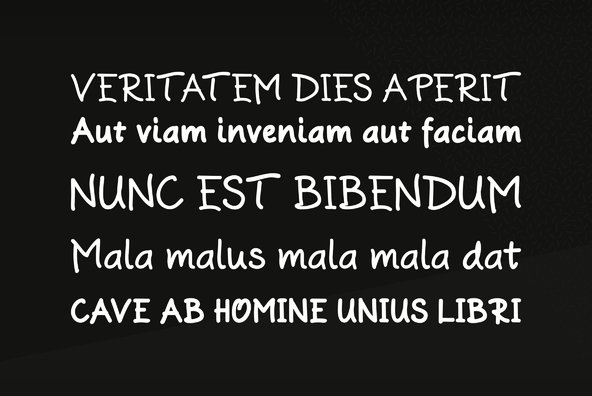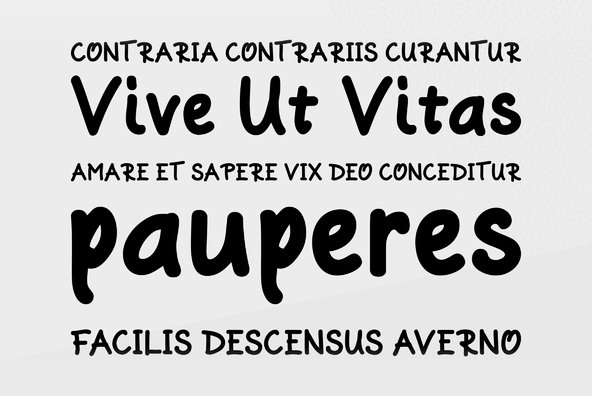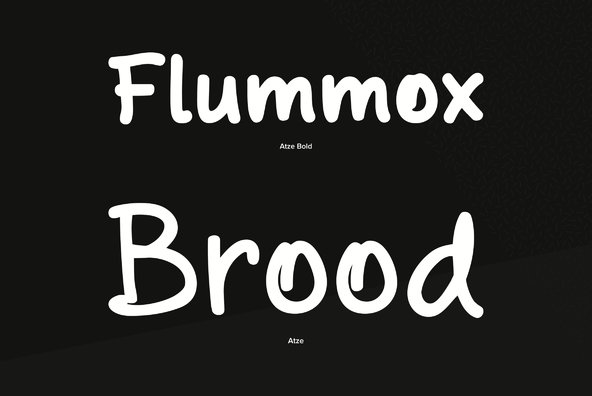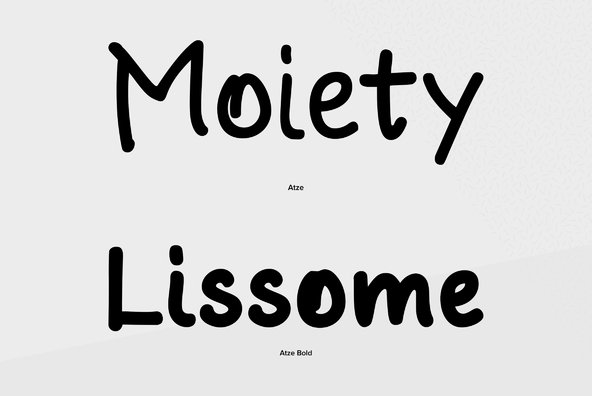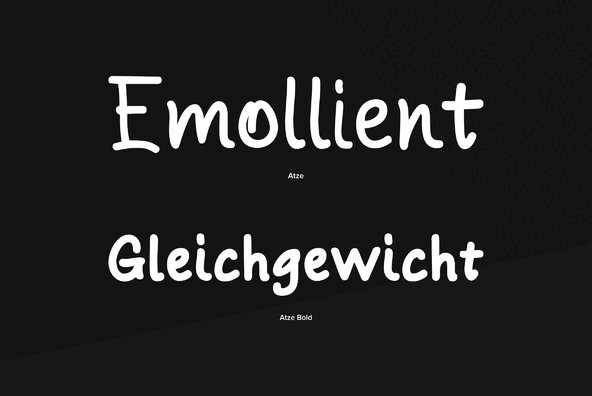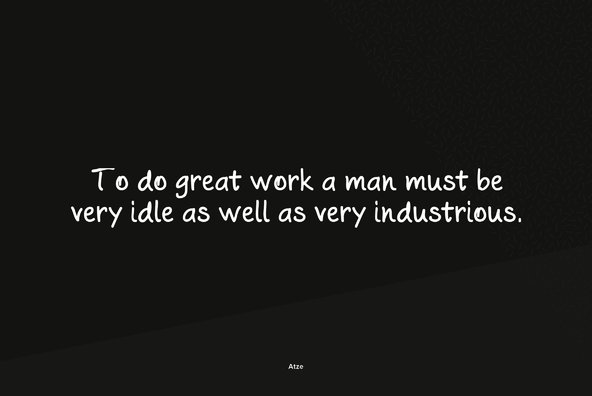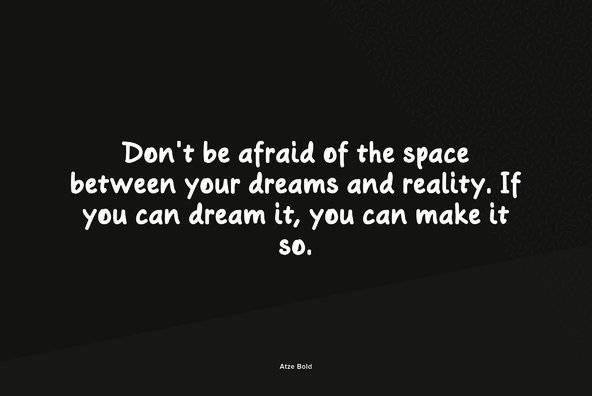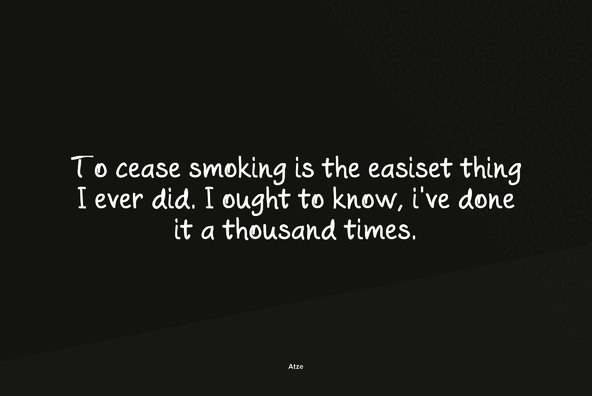
Atze, a handwriting script font, was designed by Ralph M. Unger for the profonts Library. Inspired by frowned-upon Comic Sans, Atze is much more pleasing, much milder and more natural. It cannot and should not only be used for Comics and children's books but for literally all situations where a friendly, soft, casual and relaxed atmosphere is required. However: Especially for Comic books, Unger created a set of very funny Atze Bats: AAAAH - BOOOM - BRRRR!